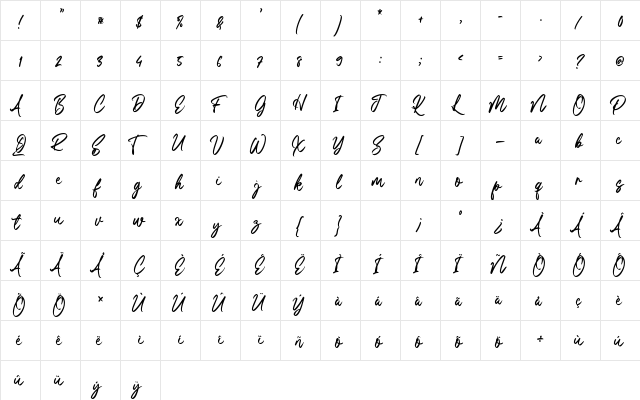
Amore Eiffel Regular
| Designer | Colllab Studio |
Design Context for Amore Eiffel Typeface
Amore Eiffel is a composed and adaptable typeface that performs quietly and consistently across a wide range of design contexts.